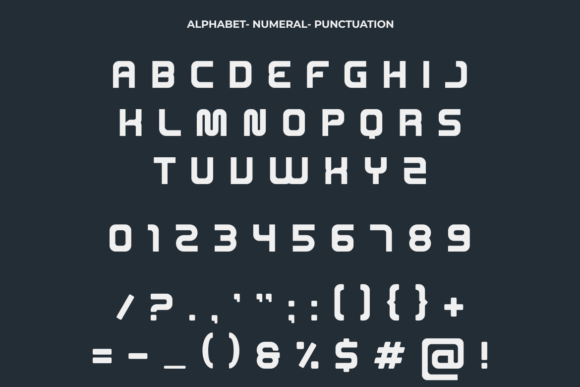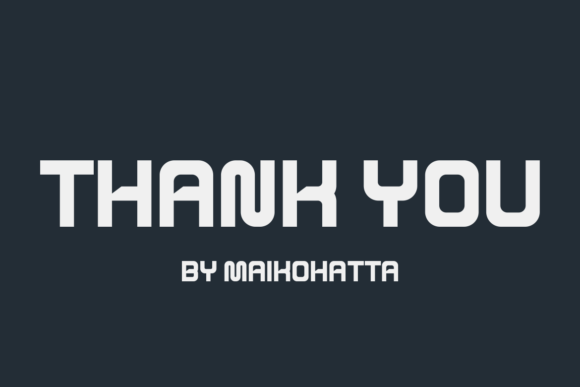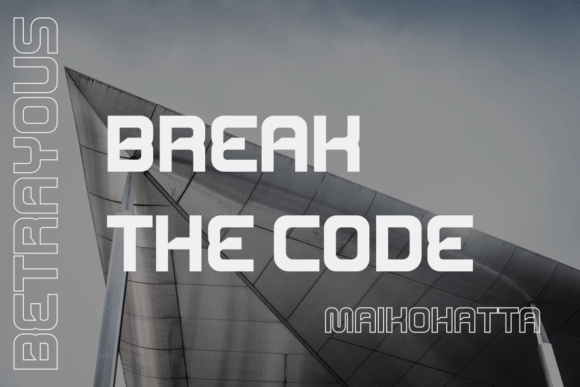
**BETRAYOUS Font** – Elevate Your Design with a Modern Bold Display Font
In the realm of typography, a font can make or break the visual identity of a project. For designers and crafters seeking a bold statement, **BETRAYOUS Font** emerges as a game-changer. This modern display font is engineered to infuse your branding projects with a dose of authenticity and modernity, making it an ideal choice for logos, template designs, esports, and a myriad of other applications.
Unleash Creativity with **BETRAYOUS Font**
**BETRAYOUS Font** is not just another typeface; it’s a creative powerhouse designed to push the boundaries of conventional typography. Its bold and authentic style ensures that your designs stand out in a crowded digital landscape. Whether you’re crafting a logo that needs to make a lasting impression, designing a template that requires a modern edge, or creating esports content that demands dynamism, **BETRAYOUS Font** is your go-to solution.
Why Choose **BETRAYOUS Font**?
1. **Versatility**: One of the key advantages of **BETRAYOUS Font** is its versatility. It can be used across a wide range of contexts, from digital platforms to print materials. This adaptability makes it a valuable asset for designers who work on diverse projects.
2. **Bold and Authentic Style**: The font’s bold and authentic style is designed to grab attention. In a world where consumers are bombarded with information, **BETRAYOUS Font** helps your message cut through the noise.
3. **Ease of Use**: Despite its professional appearance, **BETRAYOUS Font** is incredibly easy to use. Designers can quickly integrate it into their projects, streamlining the design process.
4. **Esports and Gaming**: Specifically, for esports and gaming projects, **BETRAYOUS Font** offers a modern and competitive edge. Its dynamic appearance resonates well with the youthful and vibrant audience of these industries.
Applications of **BETRAYOUS Font**
The potential applications of **BETRAYOUS Font** are vast. Here are a few ideas to get you started:
- Logo Design: Create memorable logos that embody the spirit of your brand.
- Template Design: Enhance your templates with a modern touch that appeals to contemporary audiences.
- Esports Content: Elevate your esports content, including posters, social media posts, and in-game assets.
- Branding Projects: Use **BETRAYOUS Font** in a variety of branding materials to maintain a consistent visual identity.
Tips for Maximizing **BETRAYOUS Font**
To get the most out of **BETRAYOUS Font**, consider the following tips:
- Pair it Wisely: Combine **BETRAYOUS Font** with complementary fonts to create visual harmony.
- Experiment with Colors: Take advantage of the font’s bold style by experimenting with vibrant colors.
- Consider Context: Think about the context in which your design will be viewed and adjust your use of **BETRAYOUS Font** accordingly.
**BETRAYOUS Font** is more than just a typeface; it’s a tool for designers and crafters to express their creativity and bring their visions to life. Its bold and authentic style, coupled with its versatility, makes it an indispensable asset for any project aiming to make a statement. Whether you’re diving into logo design, template creation, esports, or any other design endeavor, **BETRAYOUS Font** is poised to elevate your work to new heights.
Embrace the power of **BETRAYOUS Font** and discover a world of limitless design possibilities. Let your creativity shine with a font that understands the pulse of modern design.